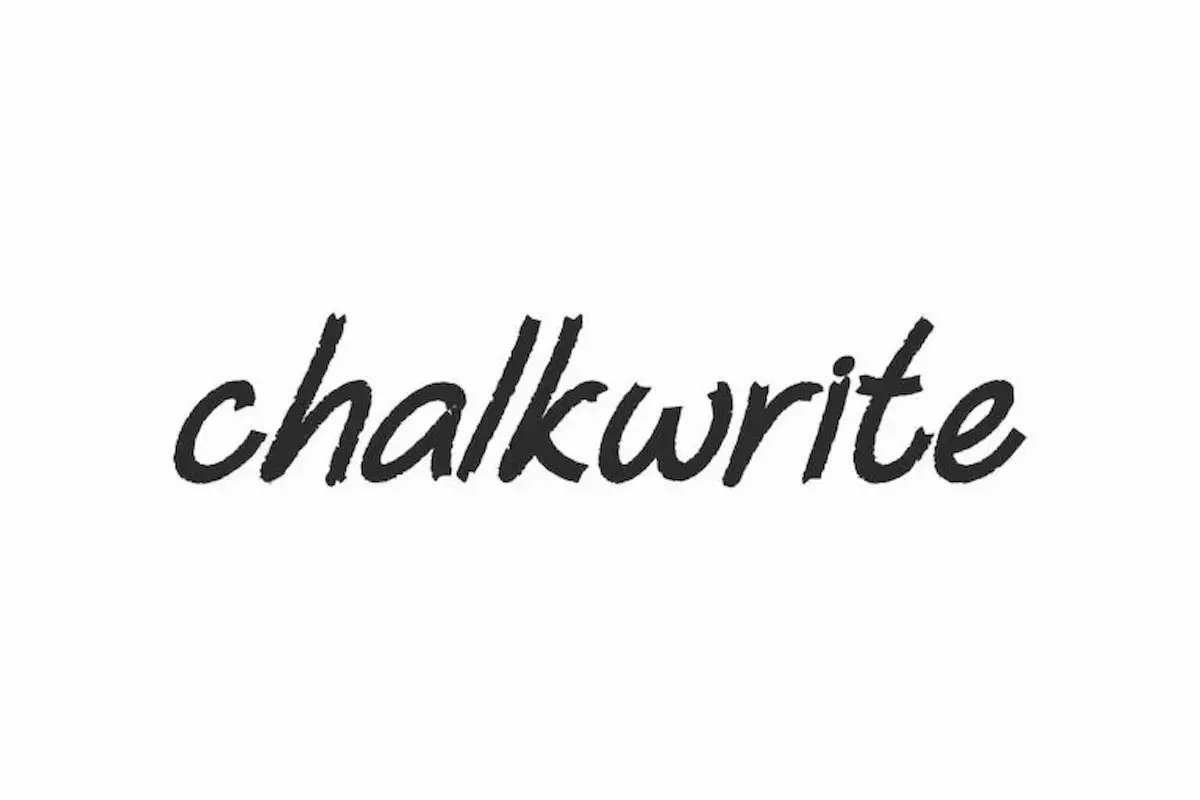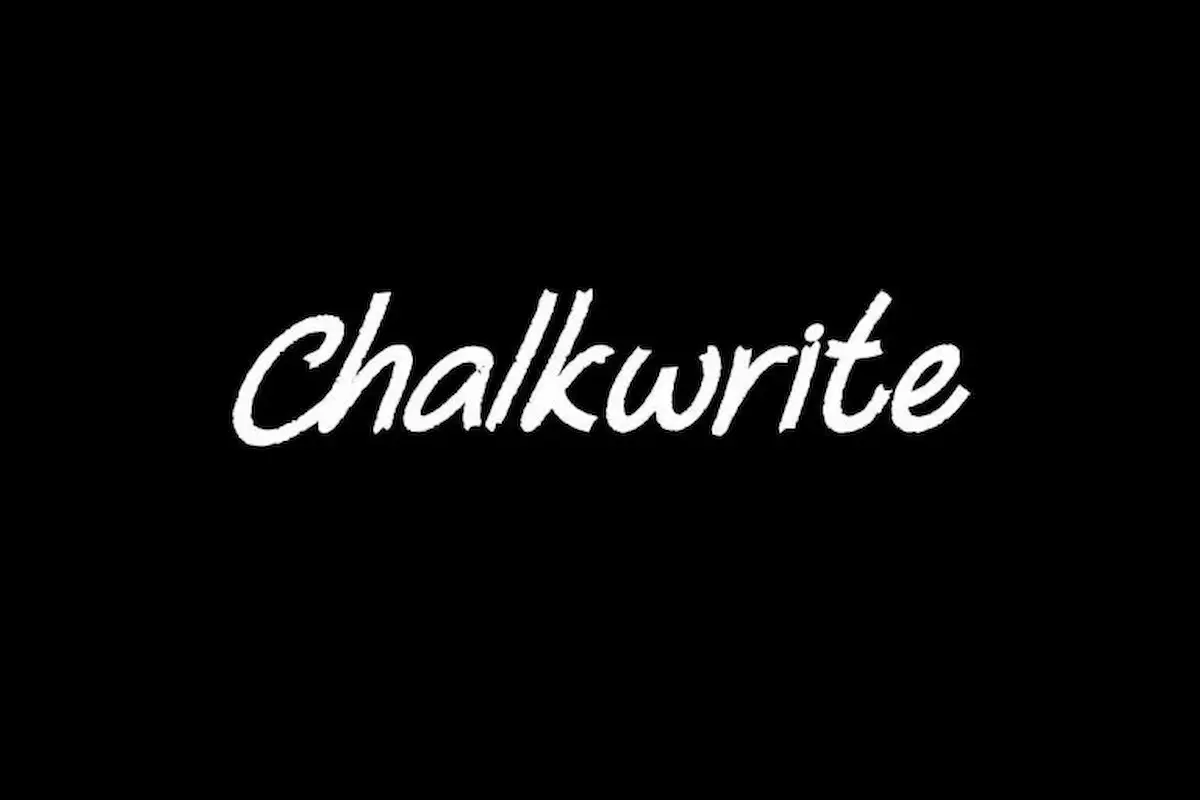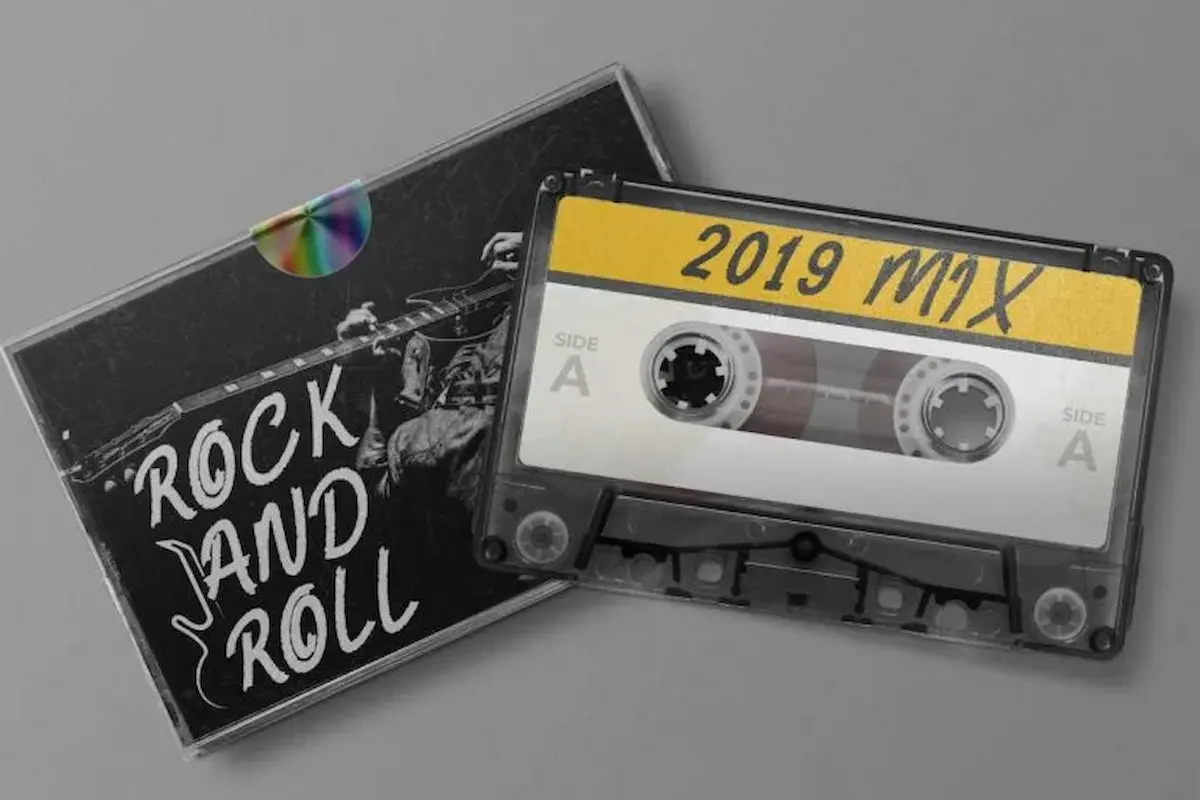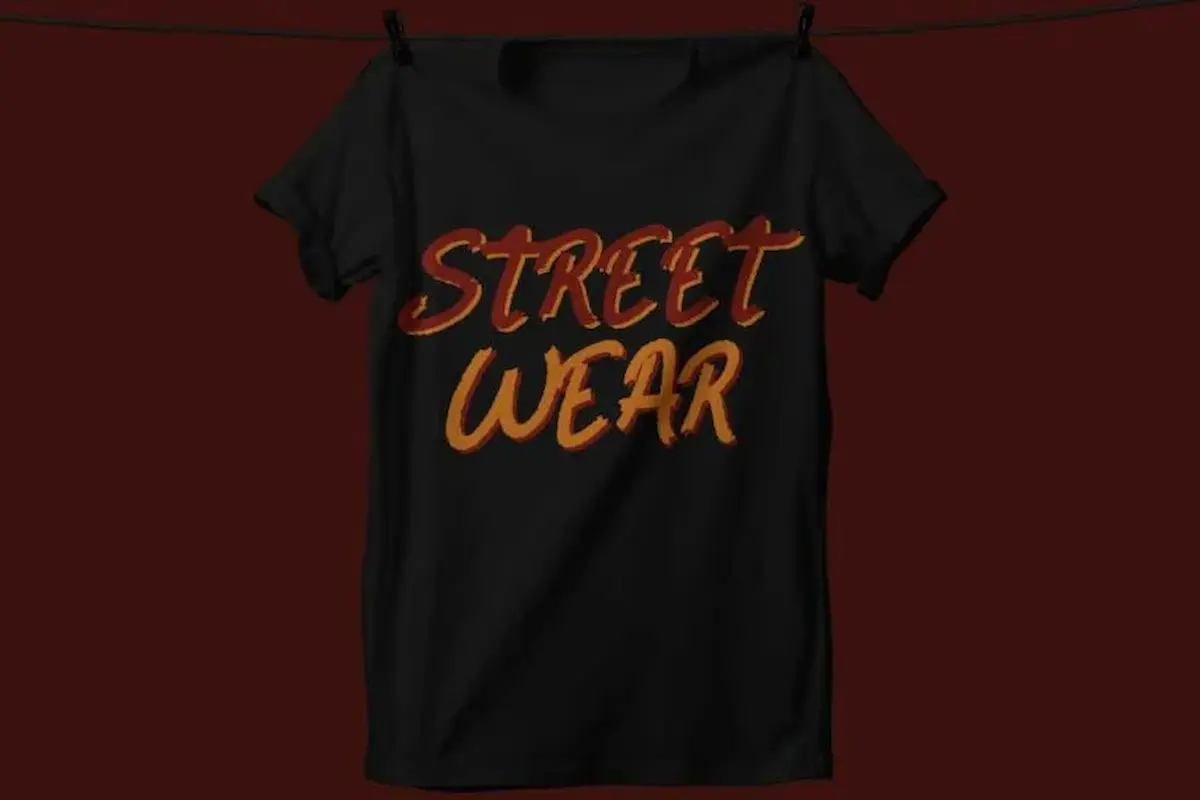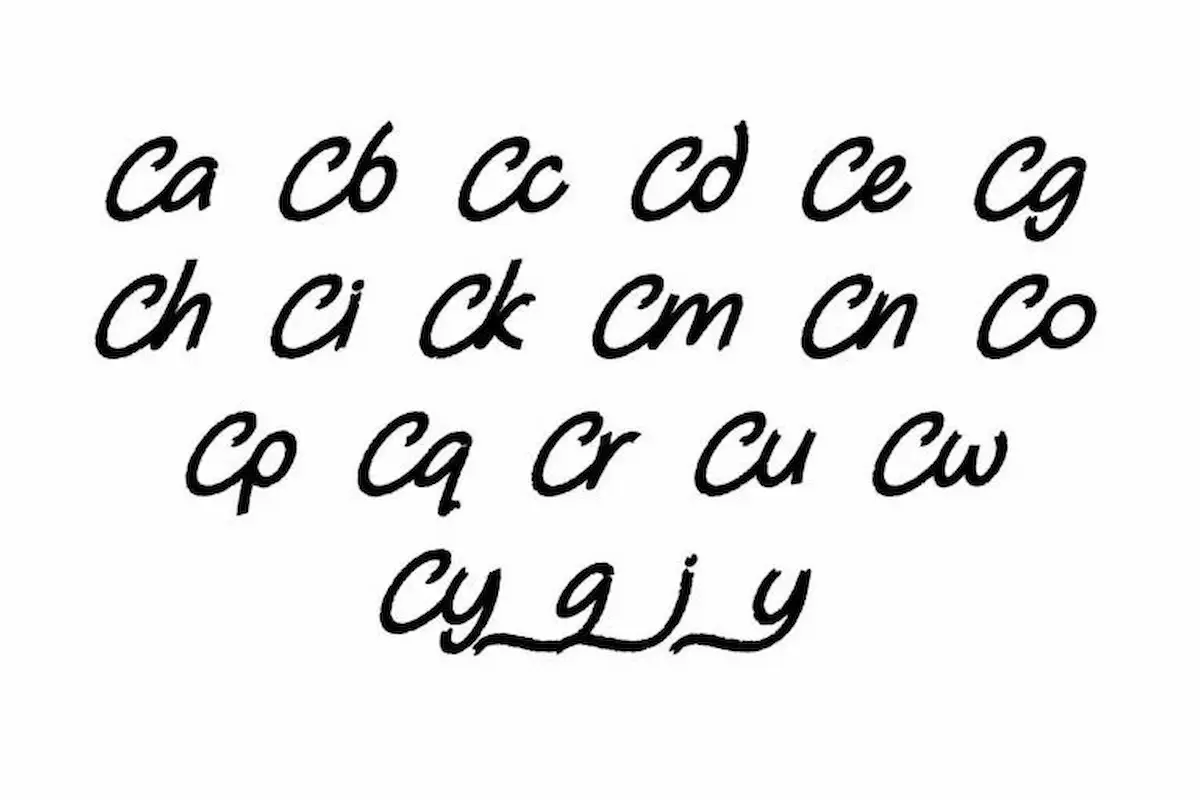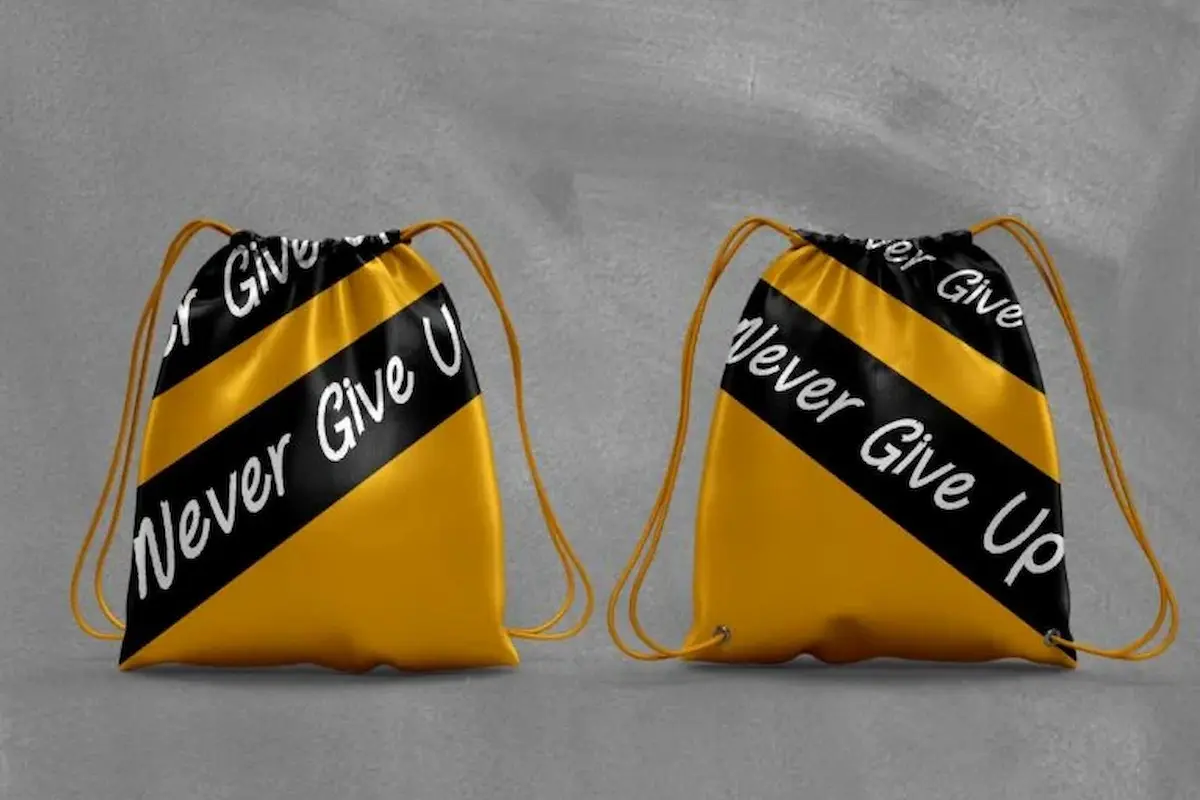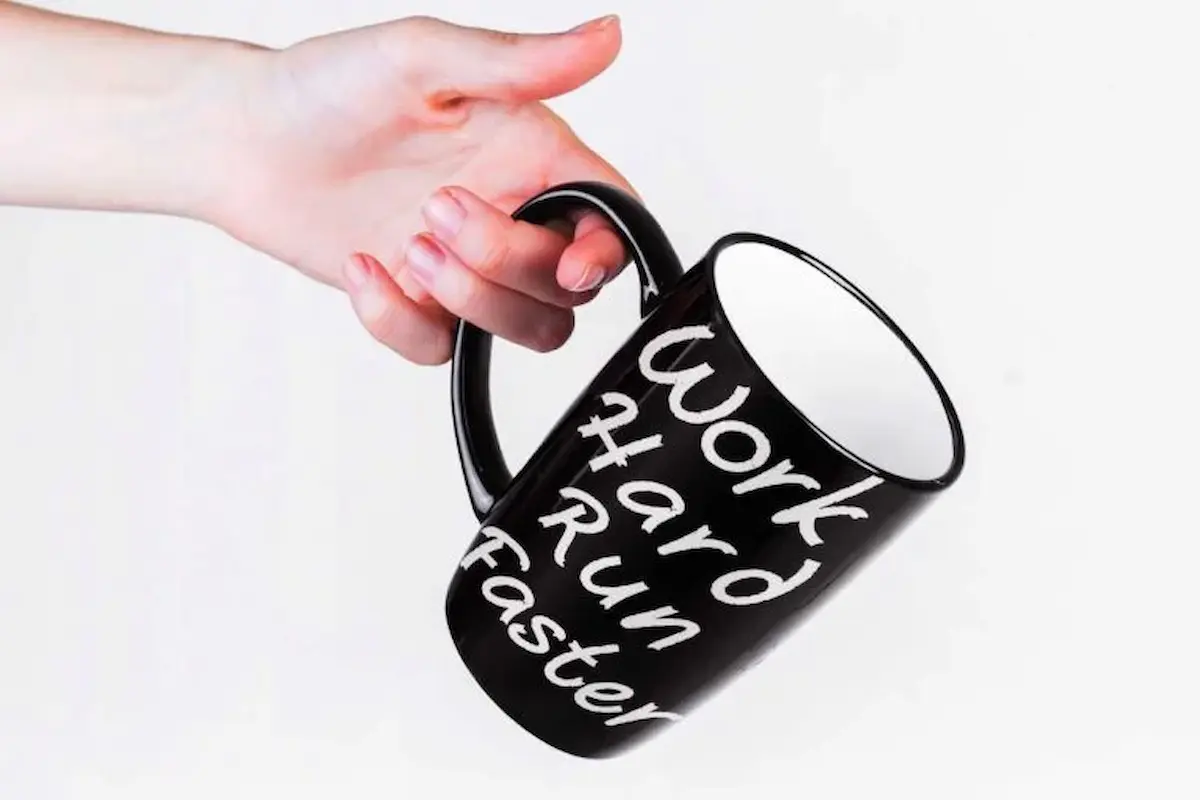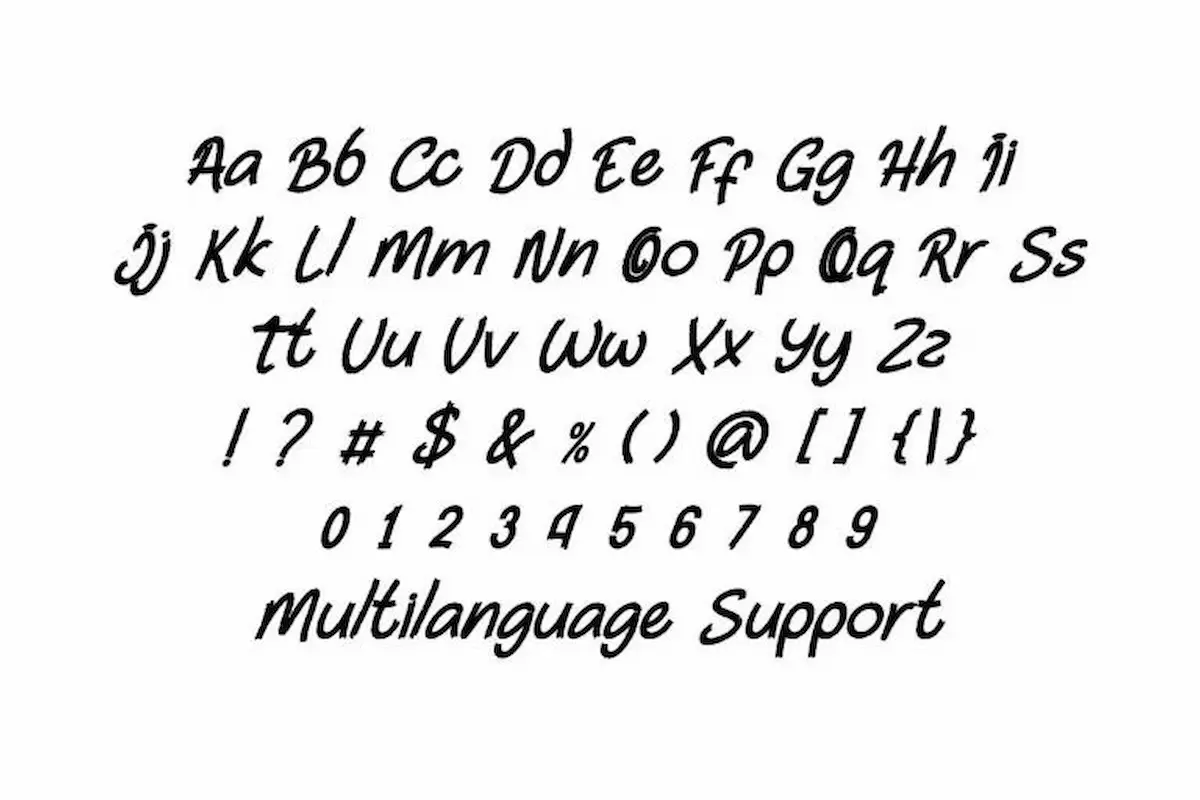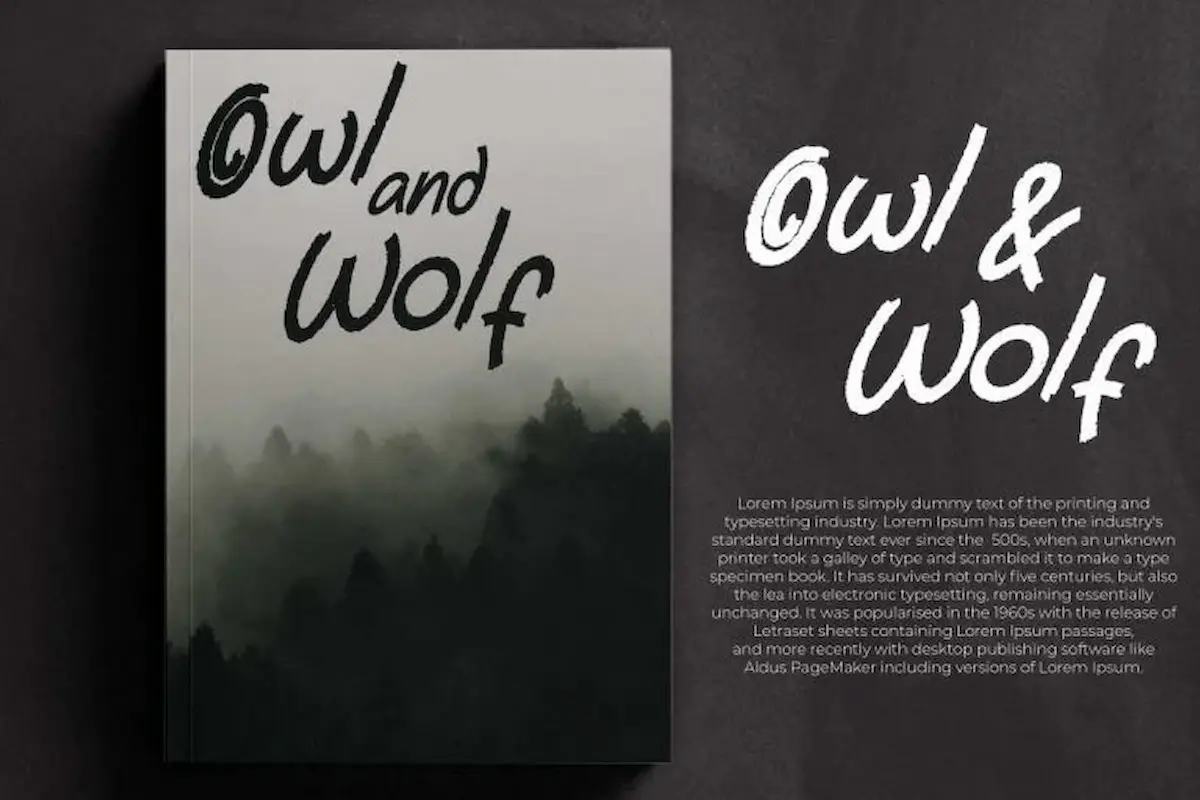
Chalkwrite Font is a classic display font with cartoon and kids related theme. The font is exclusively designed by NihStudio in 2021. The Font will great for comic, kids product, education, school etc
Chalkwrite Font is a display font with a chalk or crayon textured style, offering a unique handcrafted feel that brings your designs to life. It delivers a natural, hand-drawn appearance, perfect for projects that need a playful, artistic, or vintage touch. You can try the font by typing your own text below in the demo section. Please note that the test font below is a demo file, so some specimens/characters will not show up.
Handcrafted in our Studio in Indonesia, this font is an excellent choice for a wide range of projects (extended license required), including branding, logo design, stationery, business cards, signage, flyers, brochures, and more. Chalkwrite Sketch also works beautifully for many industries such as comics, schools, children’s products, restaurants, and music-related businesses.
With its textured chalk style and handcrafted charm, Chalkwrite Font is ideal for designers, creatives, and business owners looking to add a warm, friendly, and authentic touch to their work. Whether you’re creating menu boards, classroom posters, social media graphics, or brand logos, Chalkwrite adds character and uniqueness that stands out.